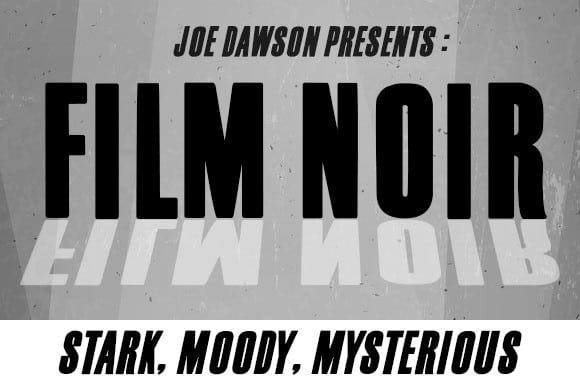
Film Noir Sans Serif Font is a extraordinary sans serif font designed with carefully handcrafted. A light, high contrast font that is perfect for feminine logo marks, fashion mastheads & editorial design. It has a regular and Italic version plus multilingual support. Also suitable for branding, T-shirt, Wedding Invitation, Classic Design, Logotype, and any project. With two style make you easier to design everythings.
Film Noir
Film Noir Italic